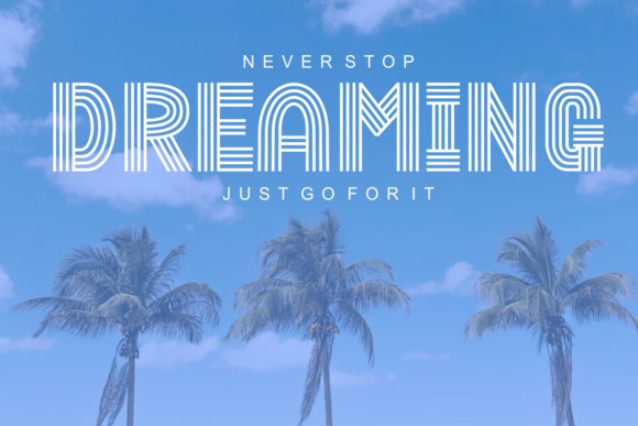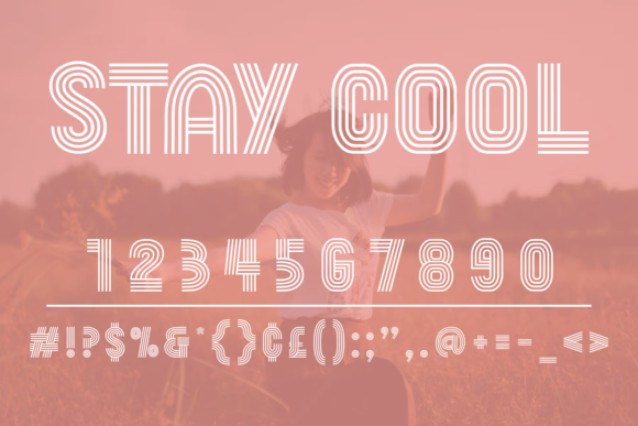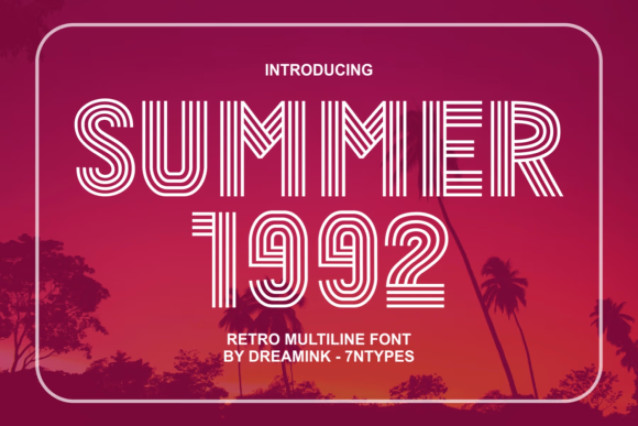
Summer 1992 Font
Summer 1992 is an incredibly cool and retro styled decorative font. No matter the topic, this font will be an incredibly asset to your fonts’ library, as it has the potential to elevate any creation.